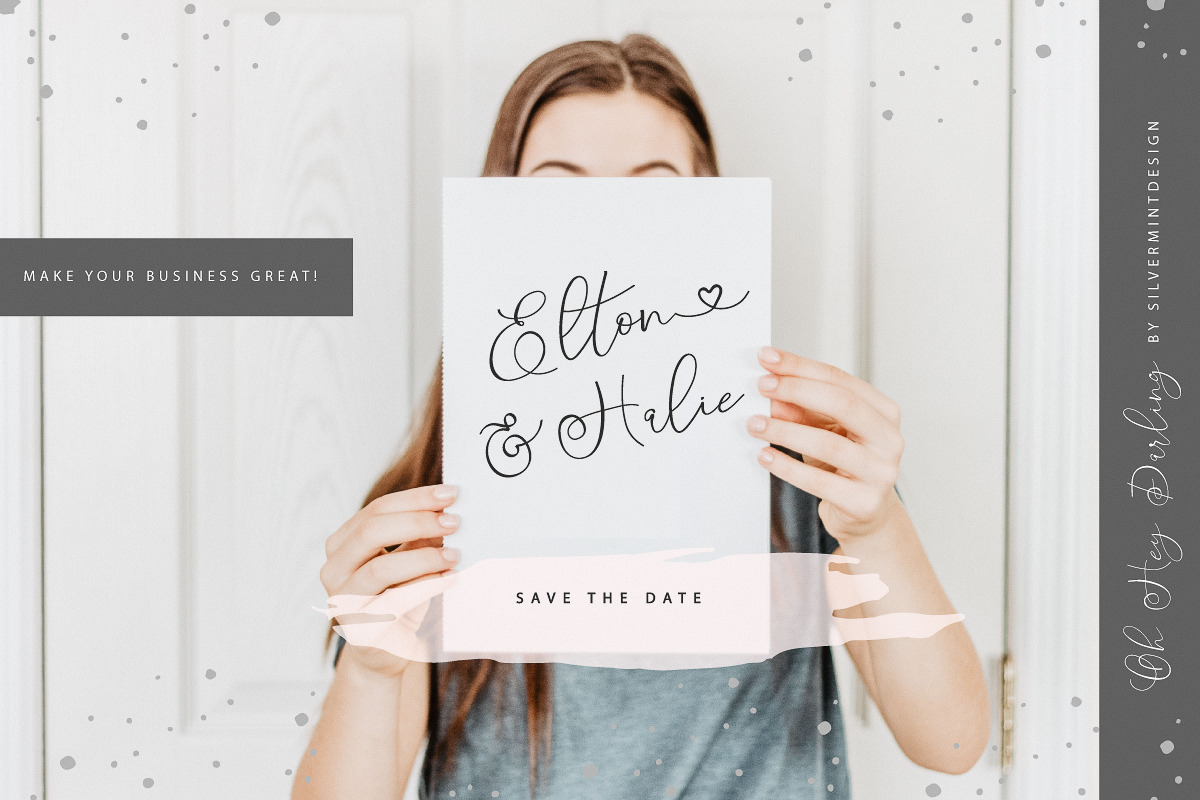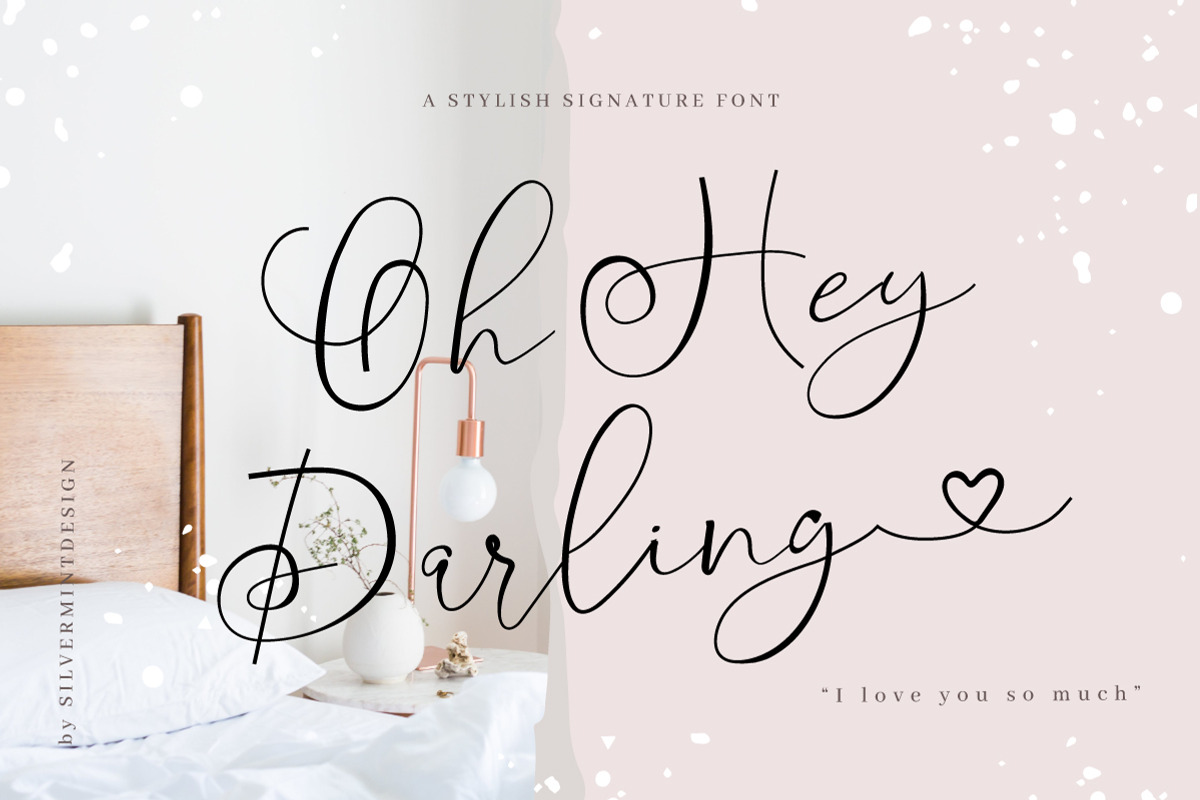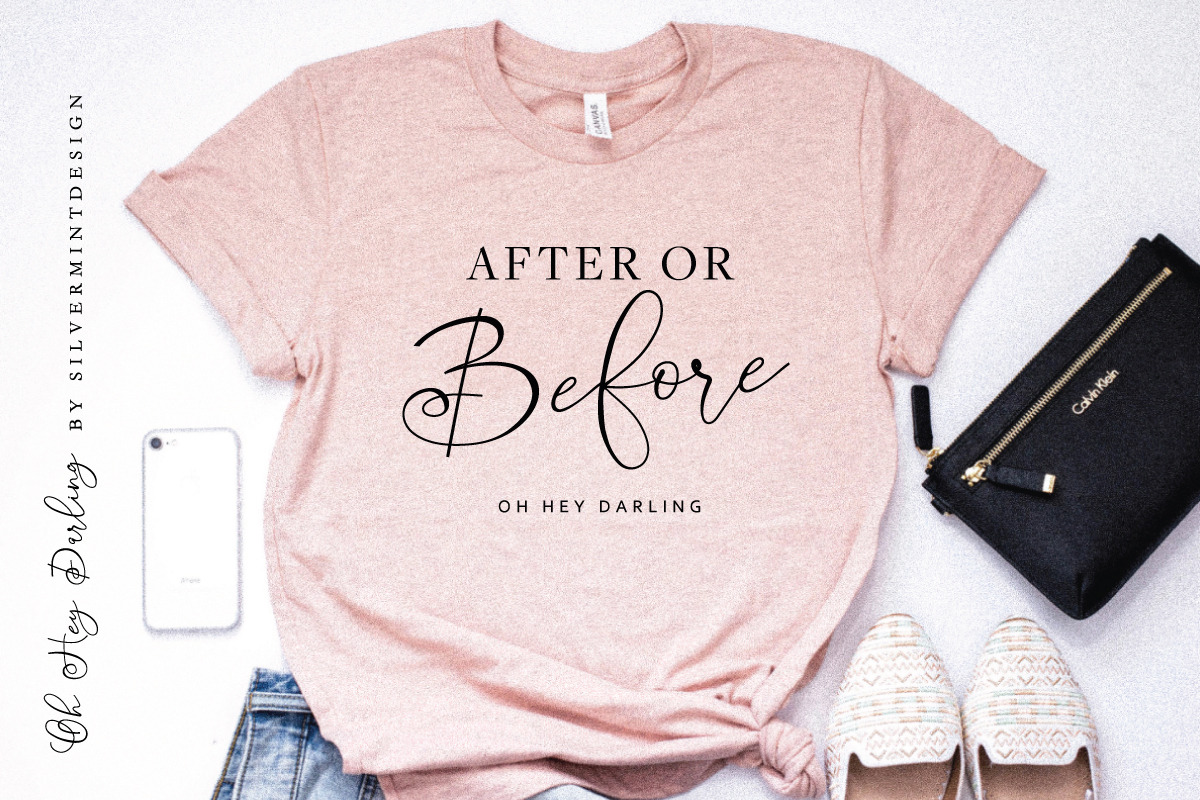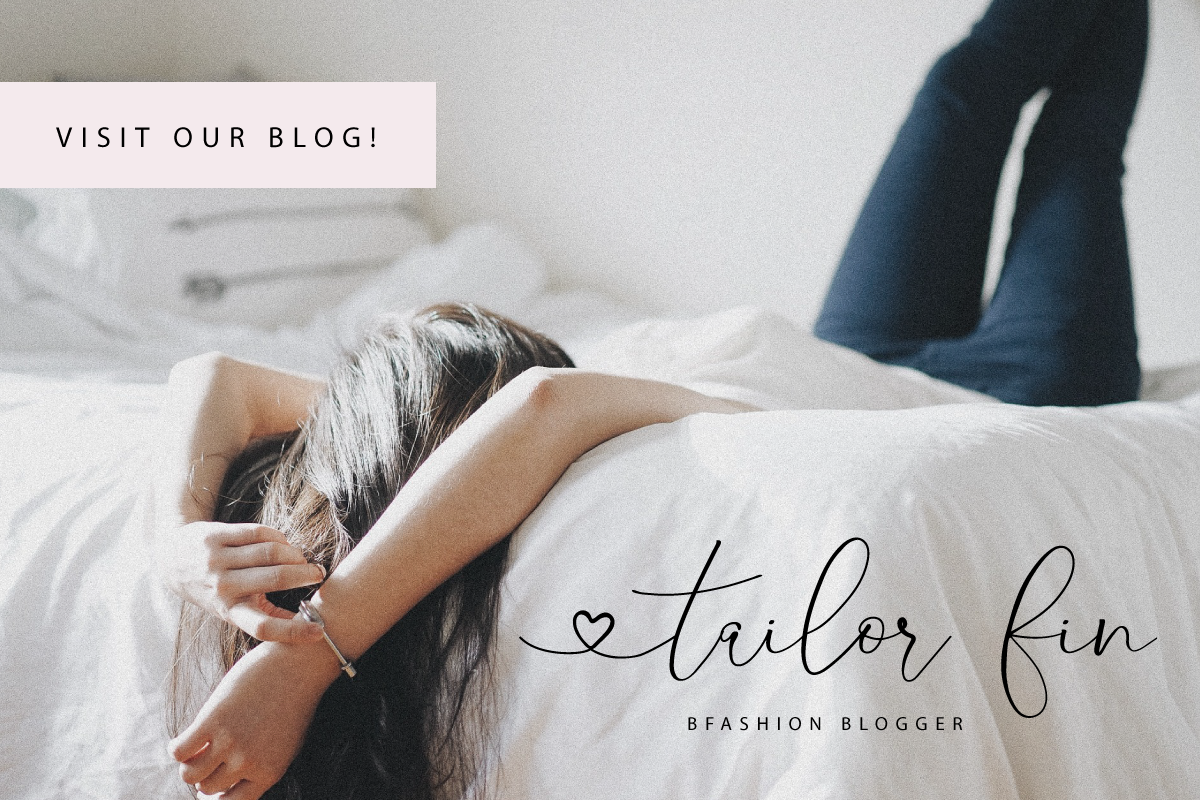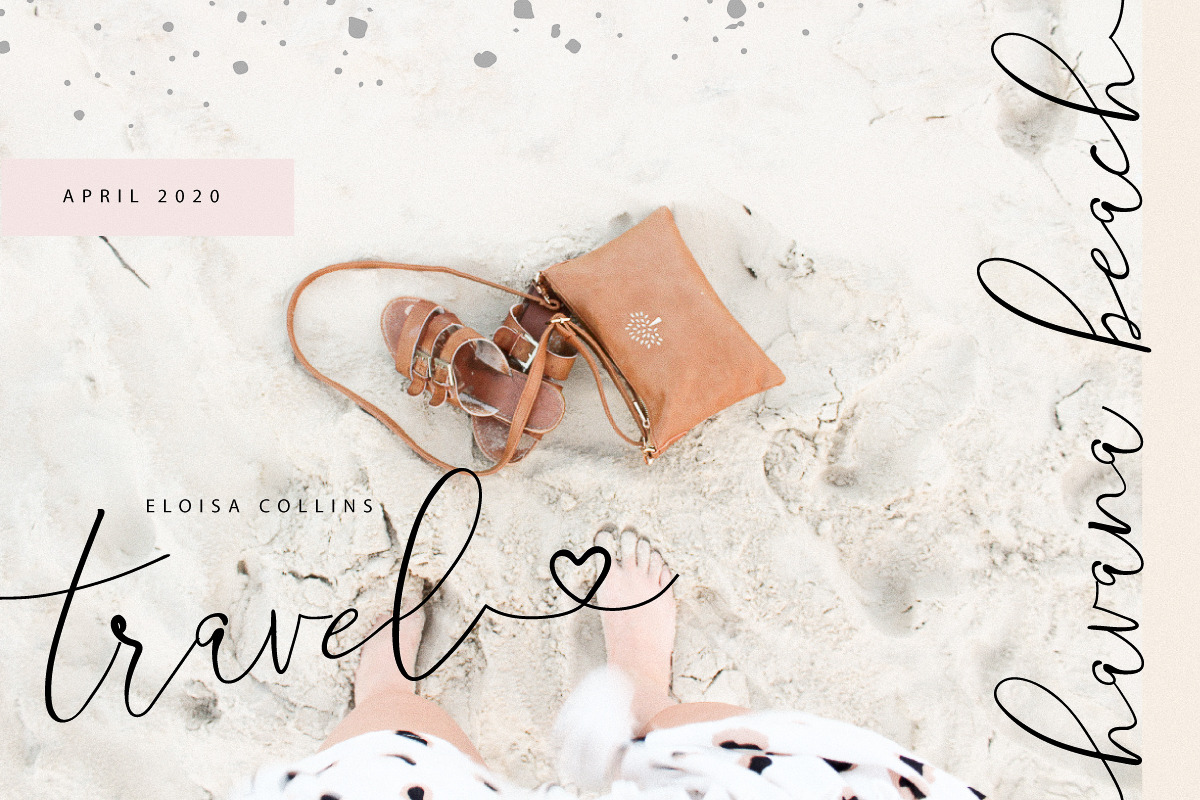
Oh Hey Darling
I introduce Oh Hey Darling, a unique and romantic script font 💗 Share your love with this incredible design :) It's perfect for any calligraphic and logo designs, wedding and birthday invitations. Oh Hey Darling was built with OpenType features and includes beginning and ending swashes, numbers, punctuation, alternates and ligatures :)